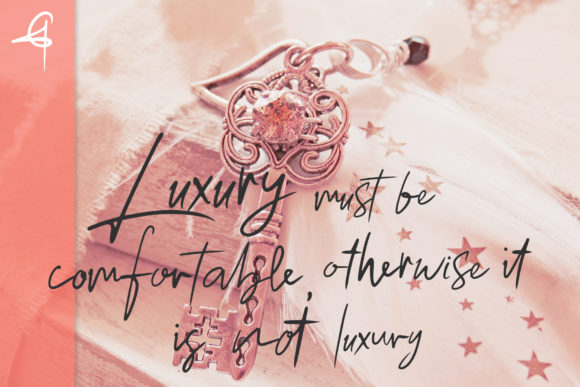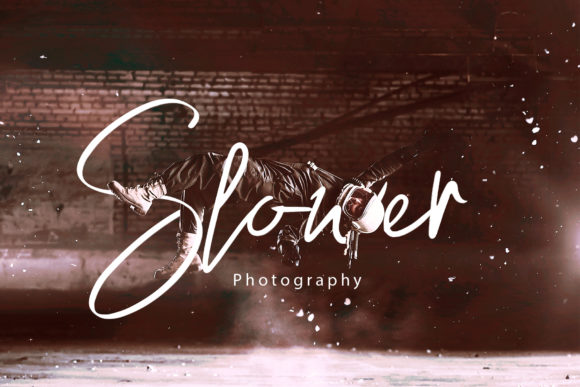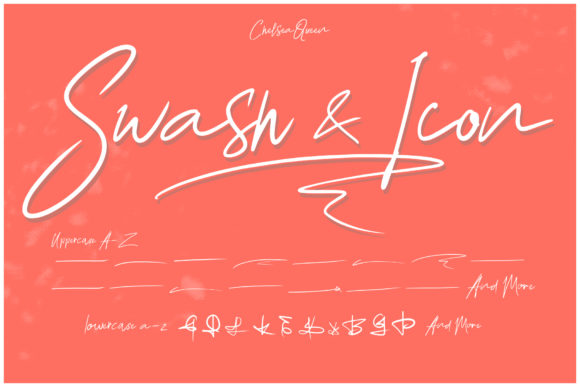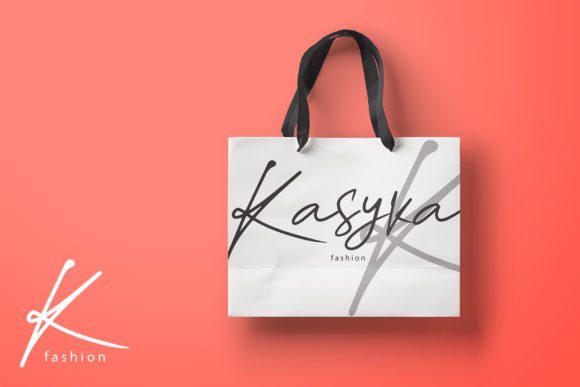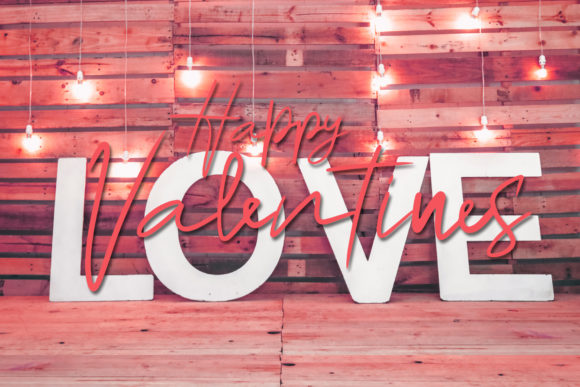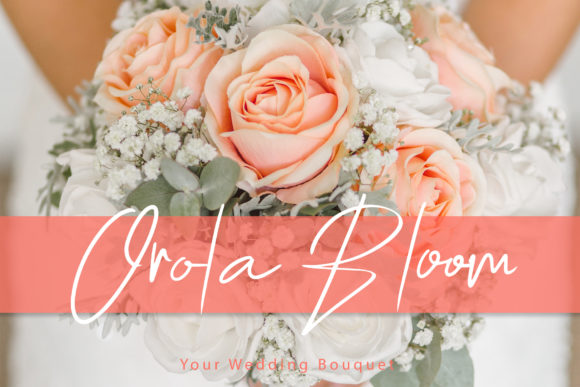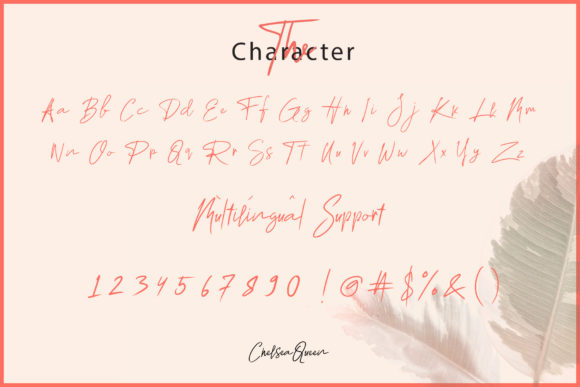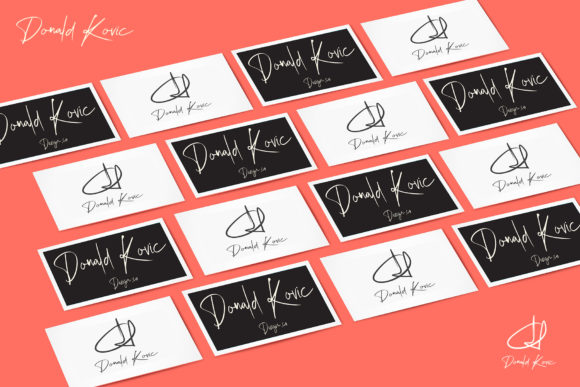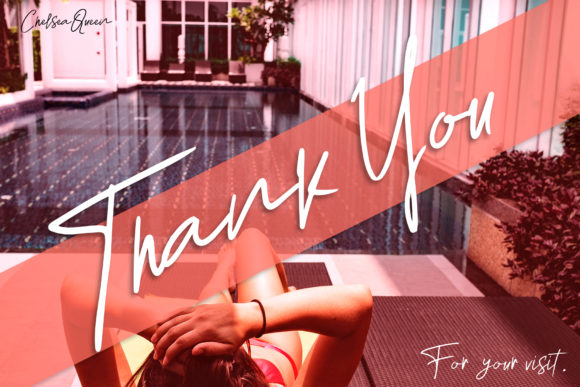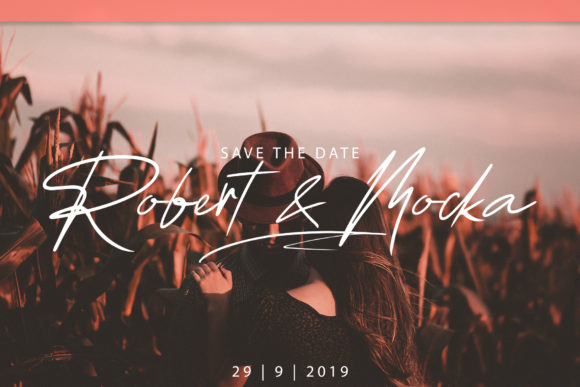
Chelsea Queen Font
About Chelsea Queen Font
The Chelsea Queen is an unique handwritten font. It has an elegant and luxurious style which is perfect for every design which needs to look upscale and chic.
It’s very suitable for logos, wedding stationary, fashion designs, posters, menus, invitations, and much more!